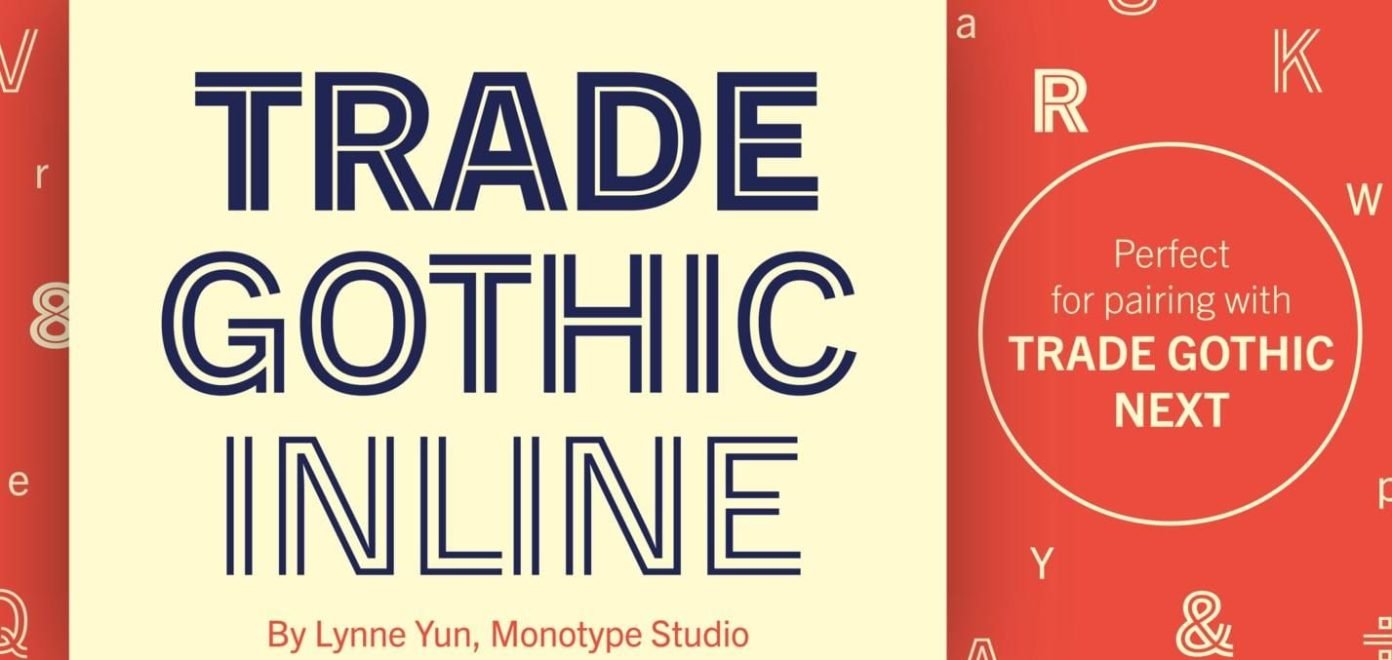
Trade Gothic Inline Font - By linotype february 1, 2022. Discover the free trade gothic inline regular font at free font download ! Trade gothic inline is a quirky display companion for trade gothic next, offering five different. Home > trade gothic inline. Trade gothic inline is a quirky display companion for trade gothic.